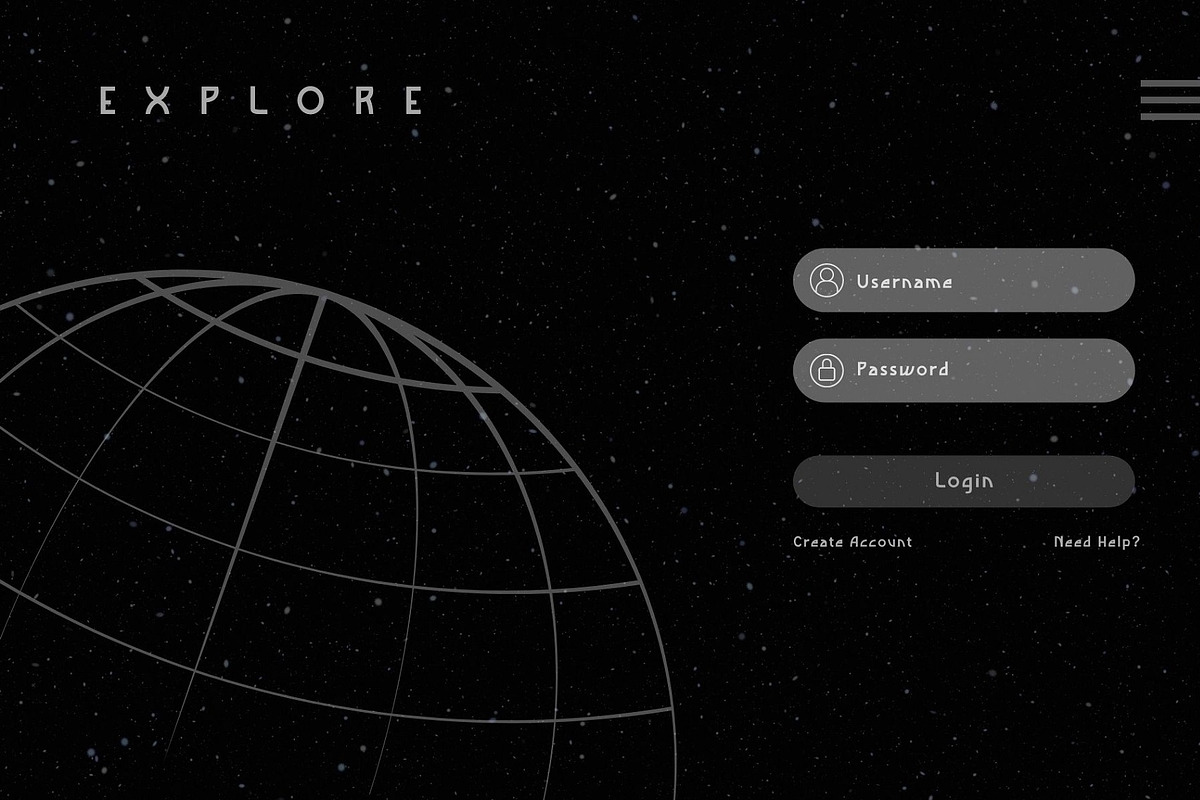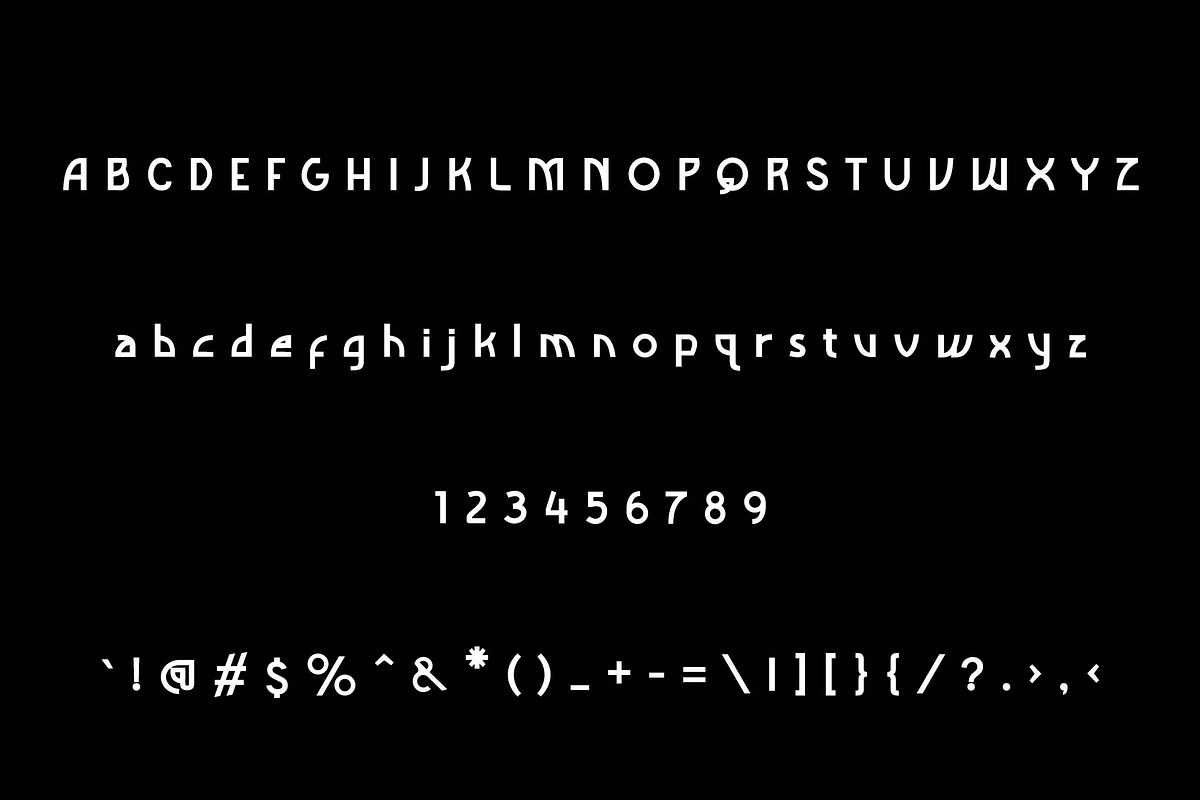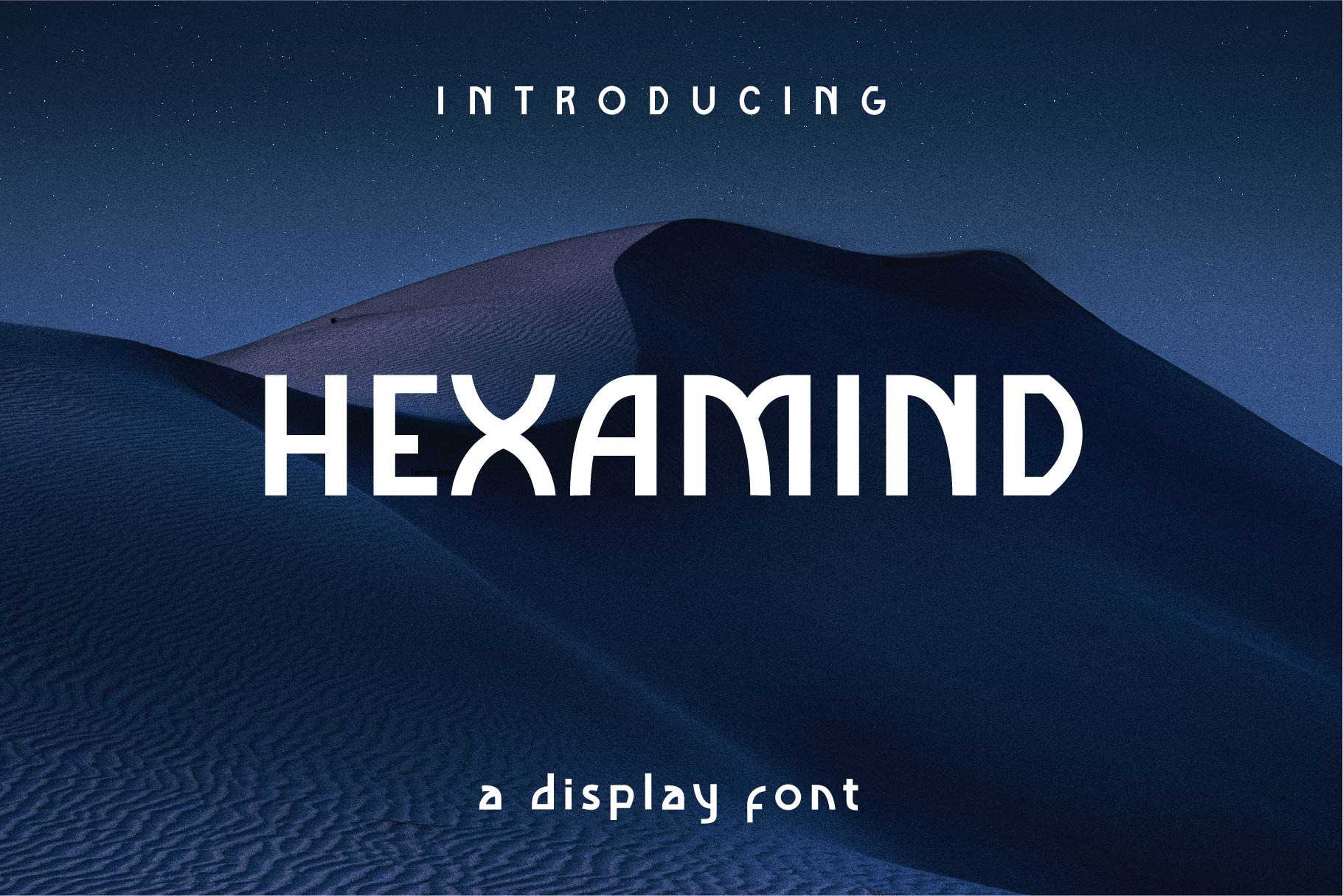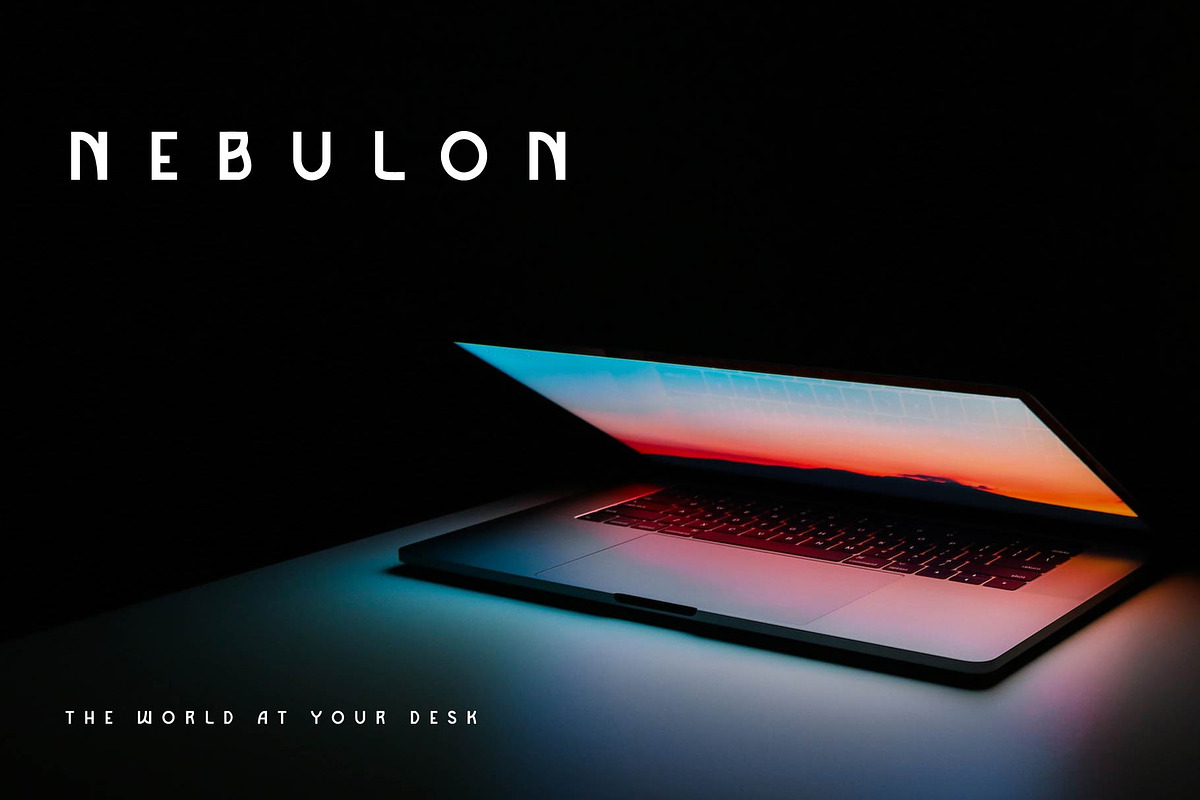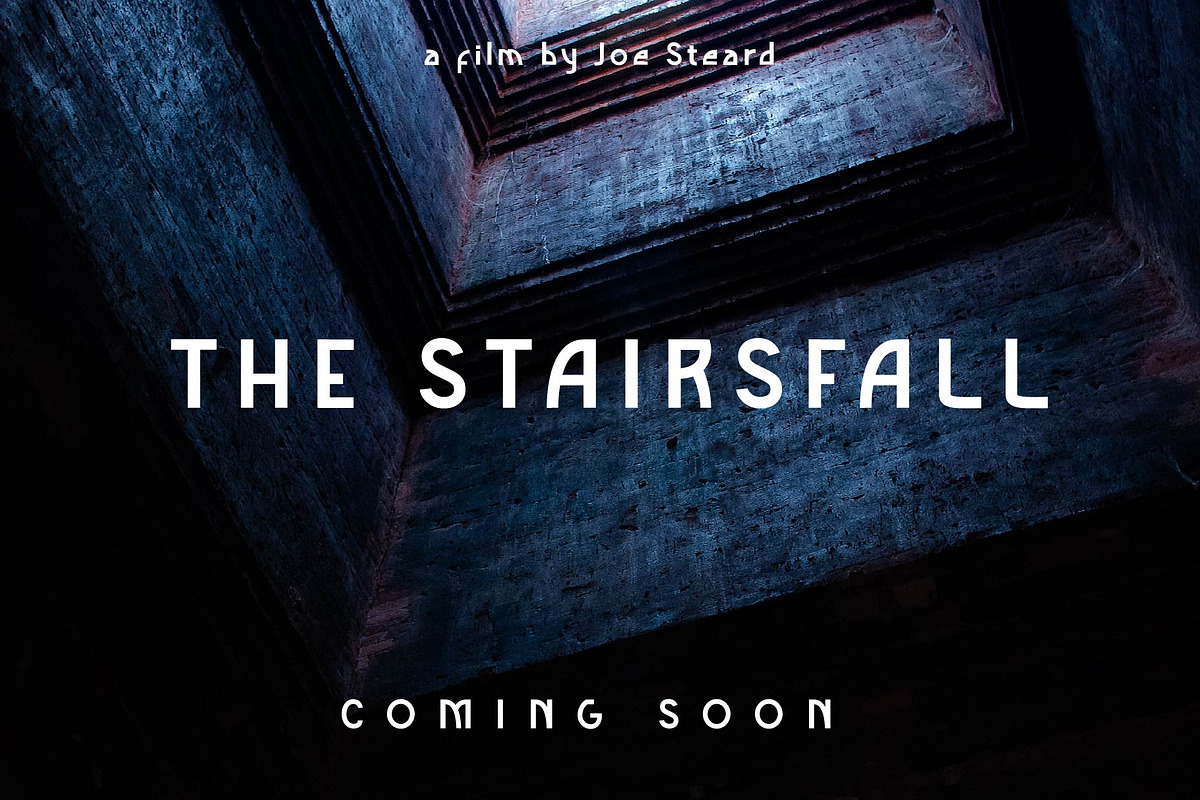
Hexamind : A Unique Display Font
Introducing Hexamind, a unique Display Font
This font is ideal for headers and titles, digital ads, pamphlets, and flyers, infographics and visual data representations, navigation labels, web layouts, brand logos, apparel designs like T-shirts, and a variety of other applications.